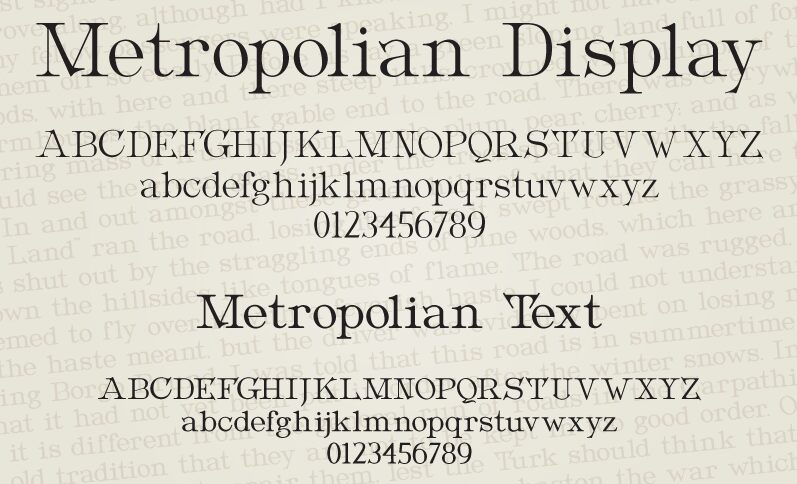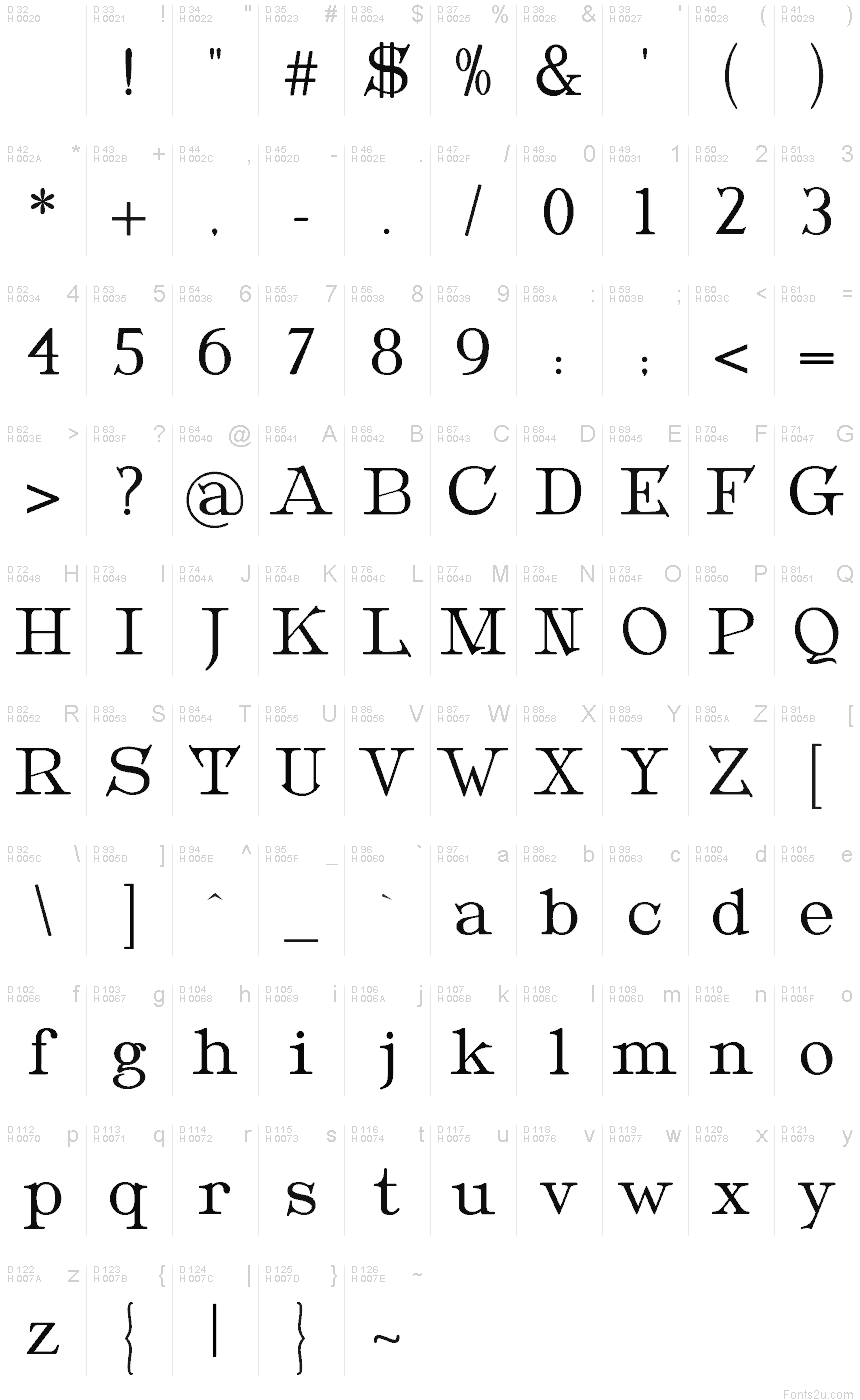
Metropolian
Id been looking for a project and came upon a type face called Metropolis, in a 1897 American Type Founders, New York specimen book.
Metropolian is my revival of Metropolis.
It is provided in two weights. Display for use at larger sizes and the slightly weightier Text for smaller sizes and body copy. Body copy set in Display looks a bit spider crawled across the page so I made the Text version to make the project more usable.
Update with a more complete glyph set and improved metrics.